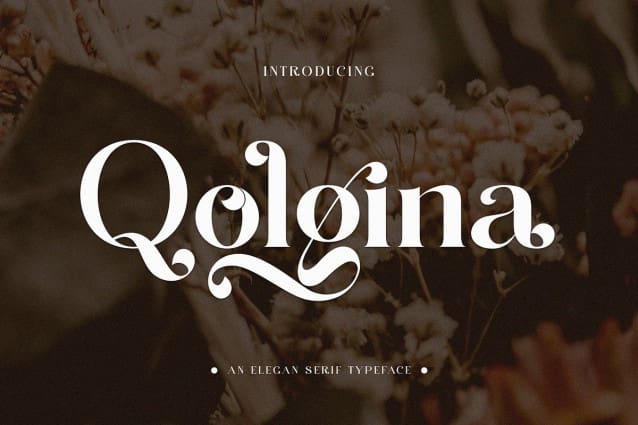
Qolgina Font
Qolgina Font – An Elegant Ligature Serif inspired by the famous minimalist logo perfect for the purposes of designing templates, brochures, videos, advertising branding, logos, invitation, layout design, elegant crafting, beauty design and other